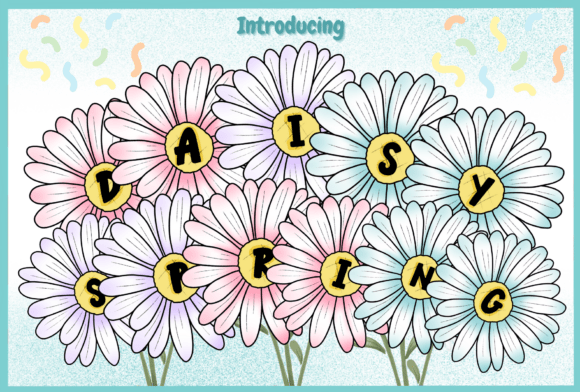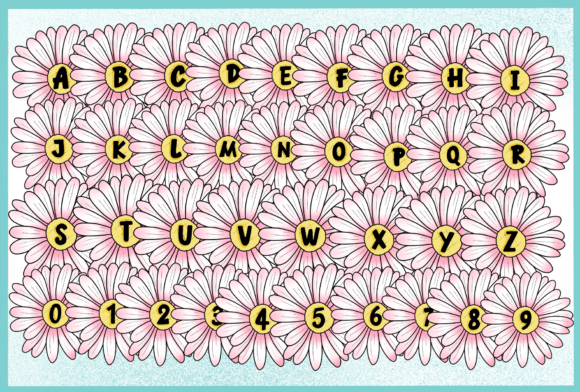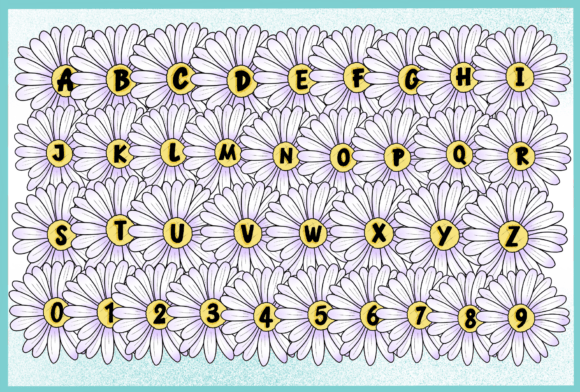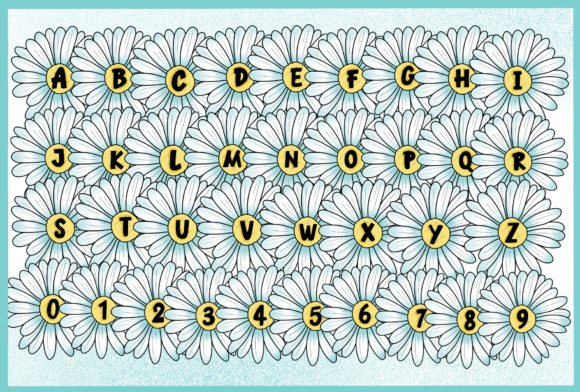
Daisy Spring Font: A Cute Floral Display Font for Kids’ Designs
About the Daisy Spring Font
The Daisy Spring Font is here to transform your projects with its distinctive character and style. Daisy Spring is a joyful and whimsical display font that blooms with charm and cheer. Each letter is nestled within the center of a daisy, making it the perfect choice for kids’ designs, spring-themed projects, greeting cards, classroom decor, party invitations, and cheerful branding. Bring your words to life with the fresh and fun vibe of this floral typeface!
Its playful, yet slightly retro style makes Daisy Spring ideal for headlines, short text blocks on posters or packaging, and branding projects needing a touch of whimsical charm. Avoid using it for body copy or lengthy text; the floral detail reduces readability at smaller sizes.
Consider pairing Daisy Spring with a clean sans-serif like Open Sans for a balanced contrast, or a classic serif like Garamond for a more sophisticated feel. For a bolder statement, a geometric sans-serif such as Montserrat could also complement its energetic character.
The font’s overall personality is cheerful and friendly, making it best suited for brands targeting a young, vibrant audience or projects emphasizing fun and approachability.